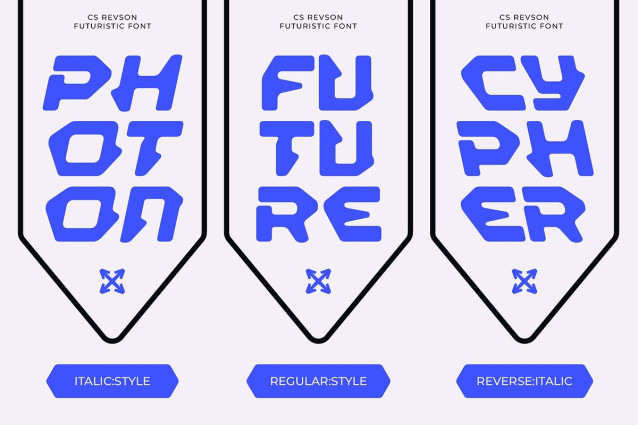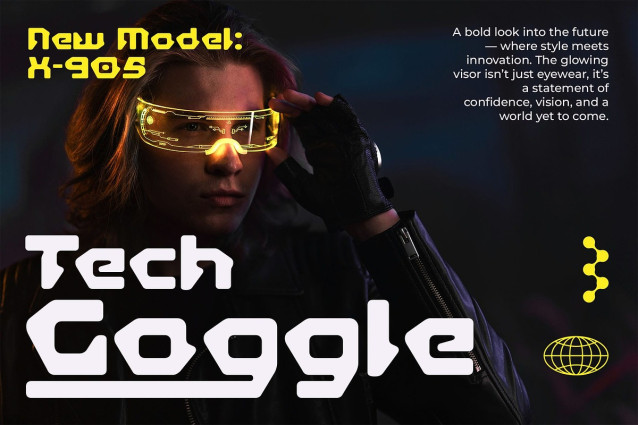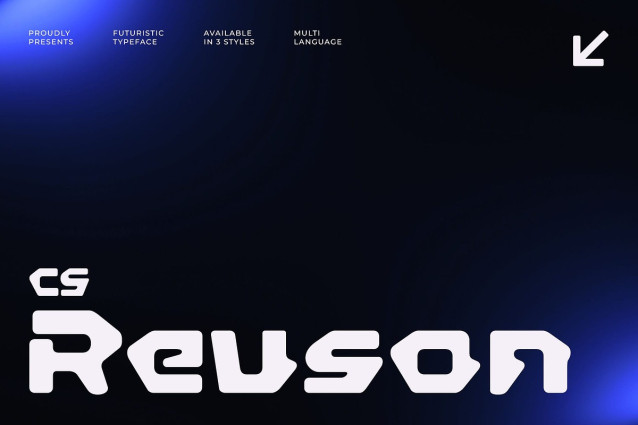
CS Revson Font
CS Revson Font is a futuristic display font crafted to command attention. Its bold letterforms and structured design make it stand out in modern creative projects, ensuring your text feels strong, dynamic, and impossible to ignore. This is a typeface built for designs that need to look ahead.
Techno Structure with Modern Style What defines CS Revson is its techno-inspired structure. Clean lines, sharp edges, and futuristic geometry give it a distinctly modern edge, making it the ideal choice for sci-fi, technology-driven, or dystopian themes. It balances readability with a striking visual presence, ensuring your typography is both functional and powerful.
Perfect for Games and Branding From sci-fi game titles to high-tech branding, CS Revson delivers versatility and impact. Its bold construction makes it ideal for logos, digital interfaces, and promotional artwork that requires a futuristic identity. On book covers or posters, it creates a strong dystopian atmosphere that pulls the audience in.
A Vision of the Future CS Revson isn’t just a font it’s a design tool that projects innovation and imagination. With its futuristic style and techno precision, it adapts seamlessly across media, from digital projects to print campaigns. For designers seeking to capture the essence of technology, science fiction, or the future itself, CS Revson is the perfect choice.